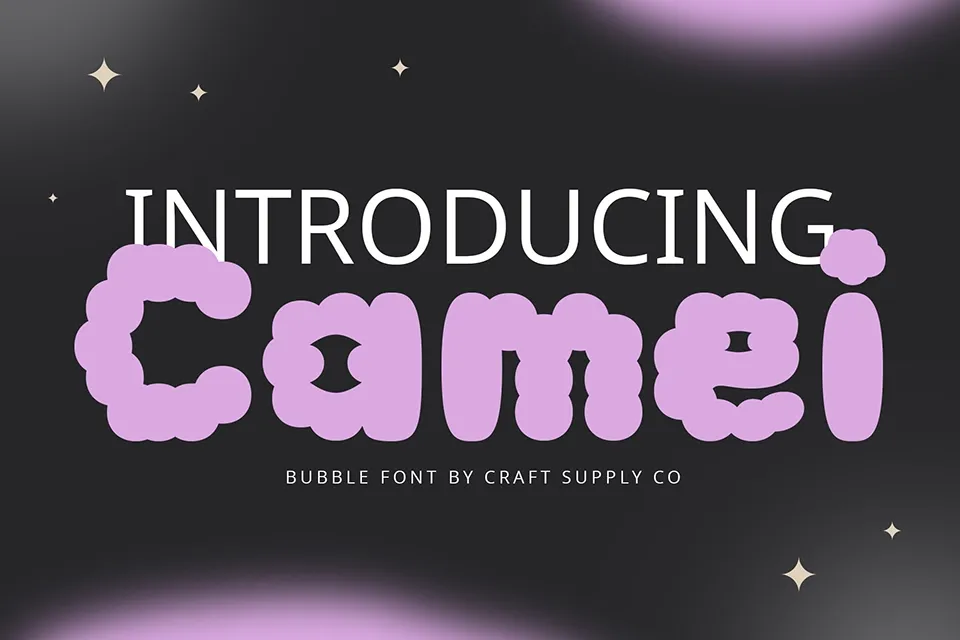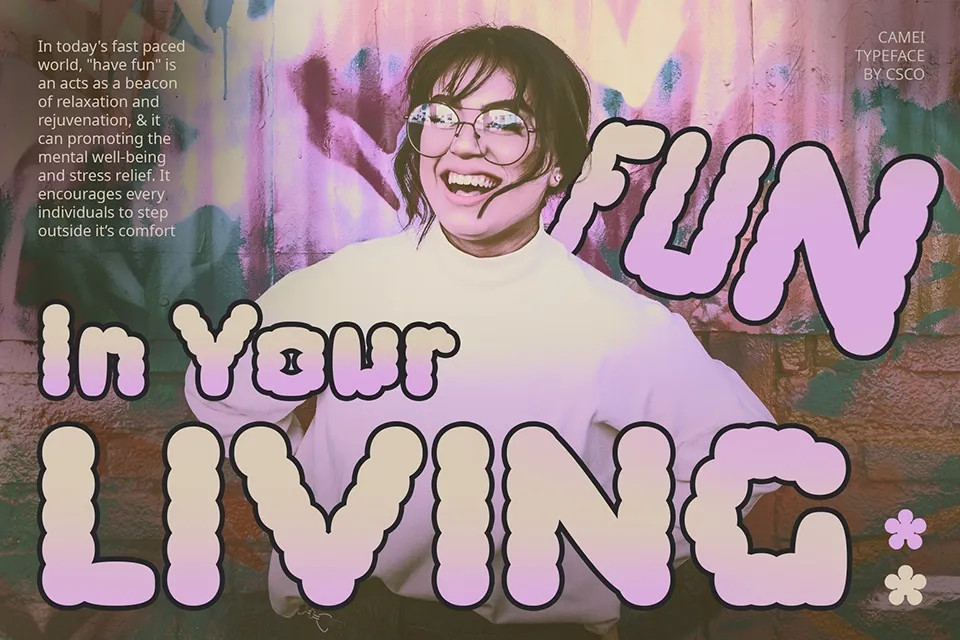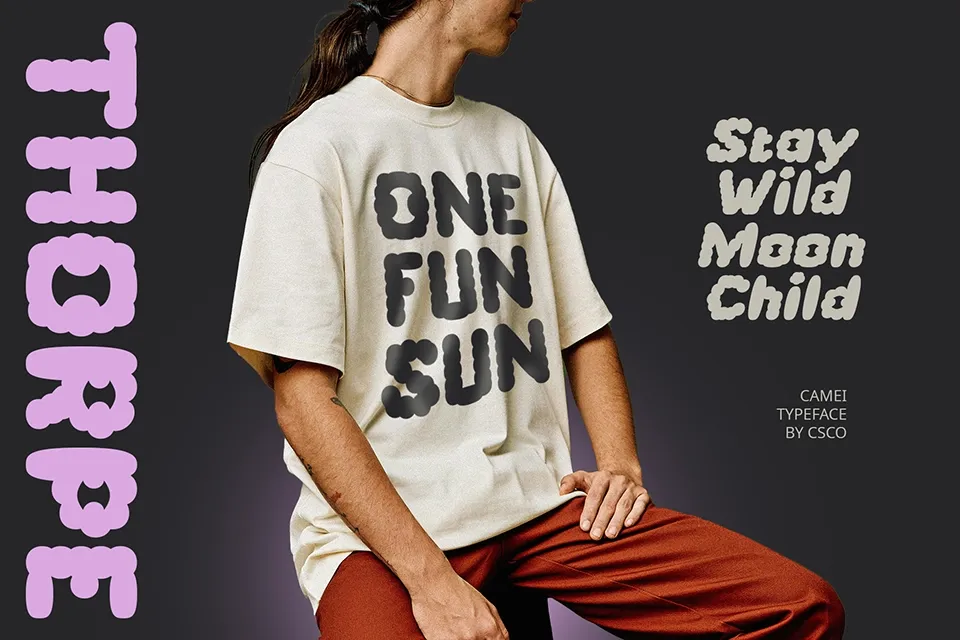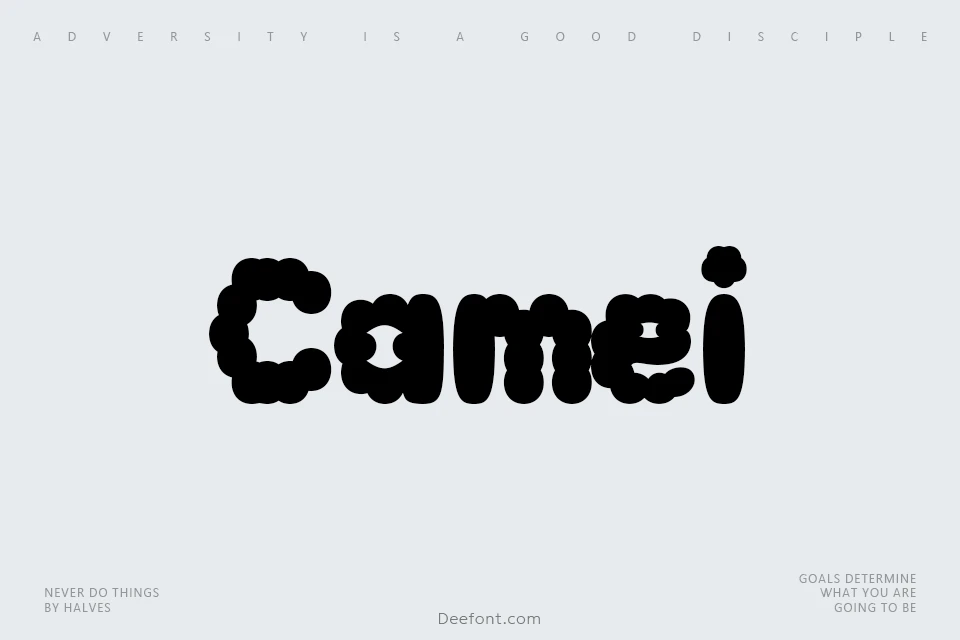
Camei Font
Camei Font is a playful and eye-catching bubble typeface designed to bring a sense of fun and creativity to your projects. With its rounded, puffy letterforms and bold presence, Camei is perfect for children’s designs, party invitations, posters, and branding that needs a cheerful touch. The font’s unique style stands out in both digital and print formats, making any message feel lively and approachable. Camei’s whimsical character and soft shapes make it ideal for projects that aim to capture attention and spread joy, ensuring your text is always memorable and full of personality.